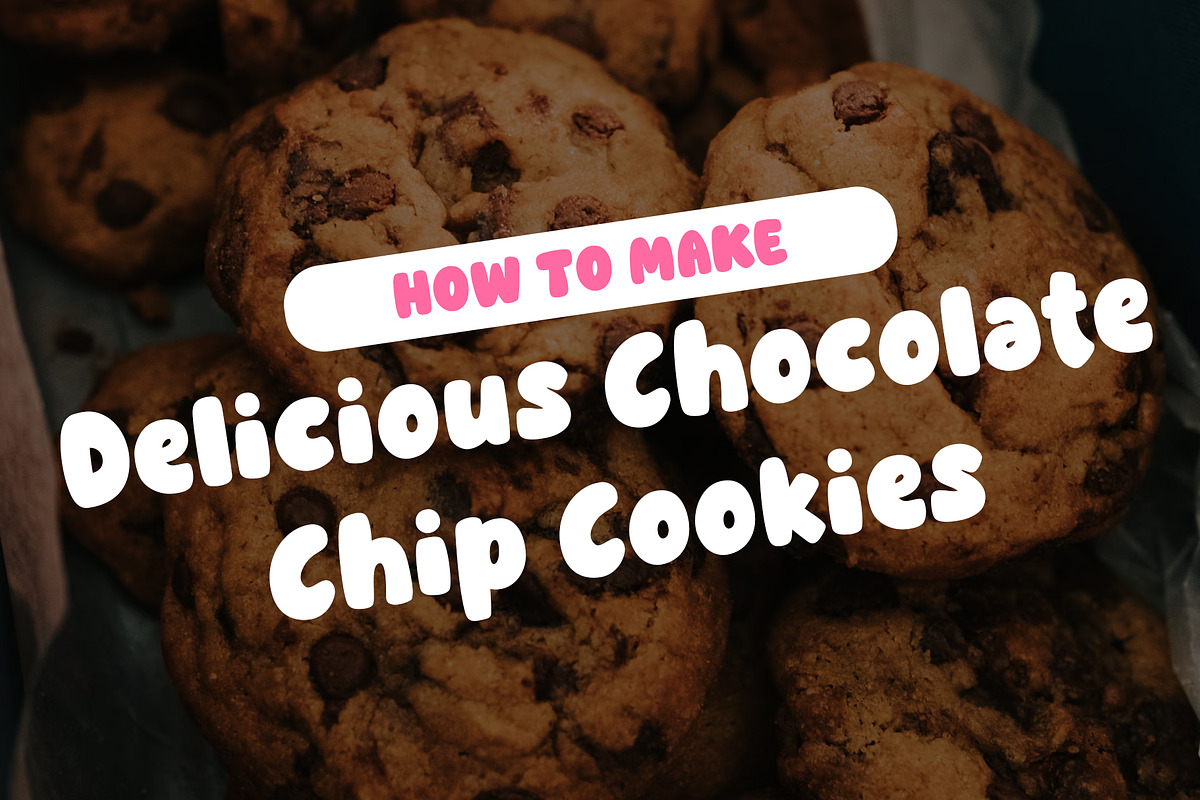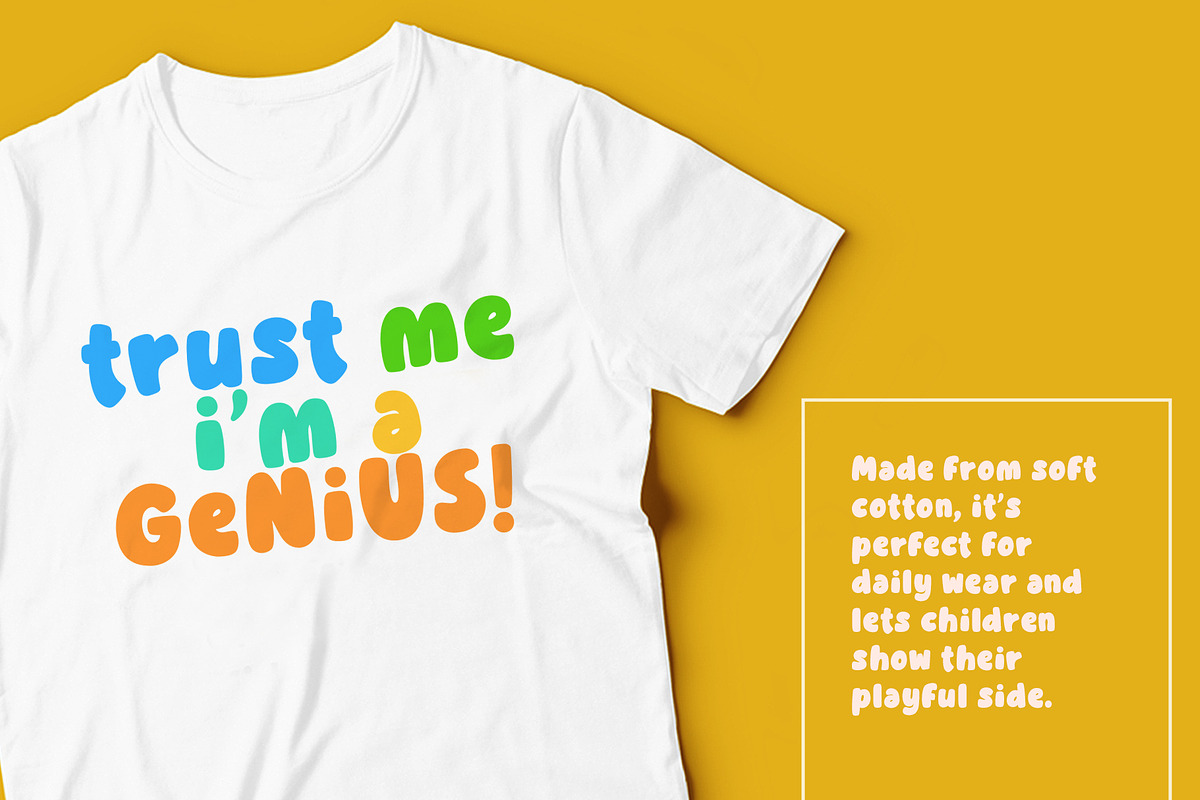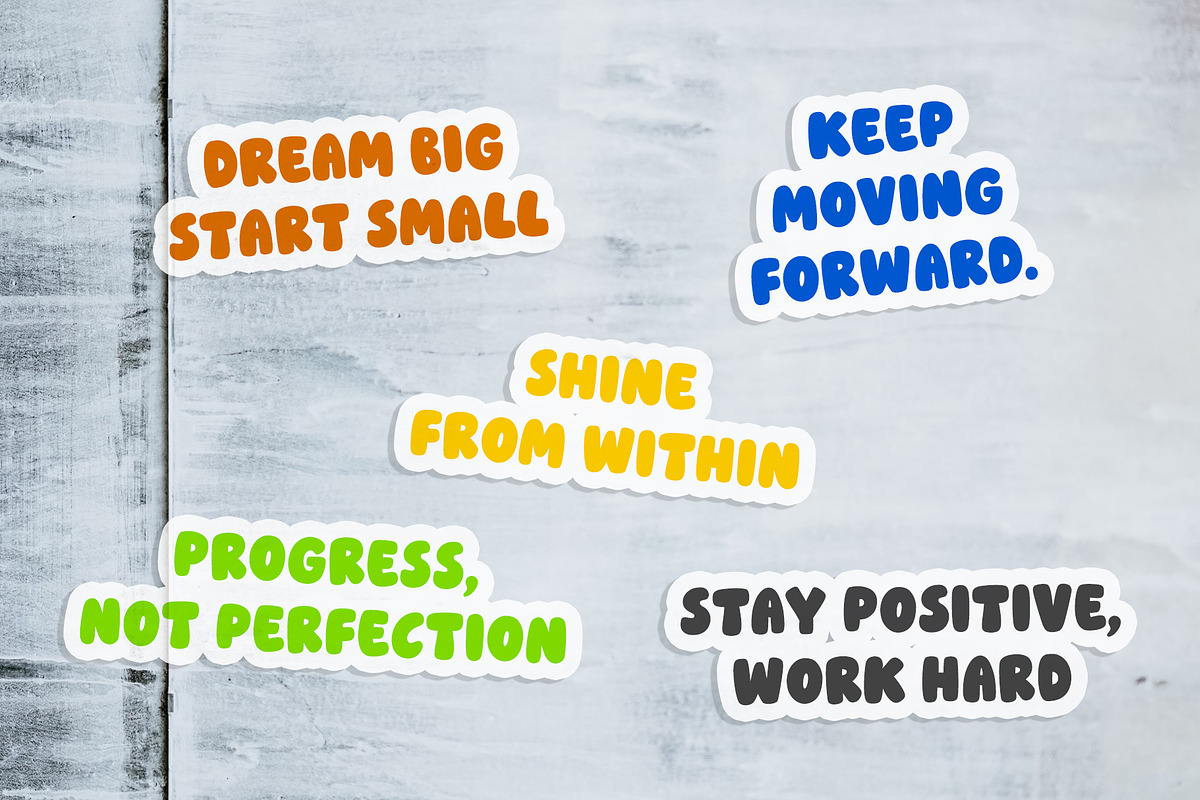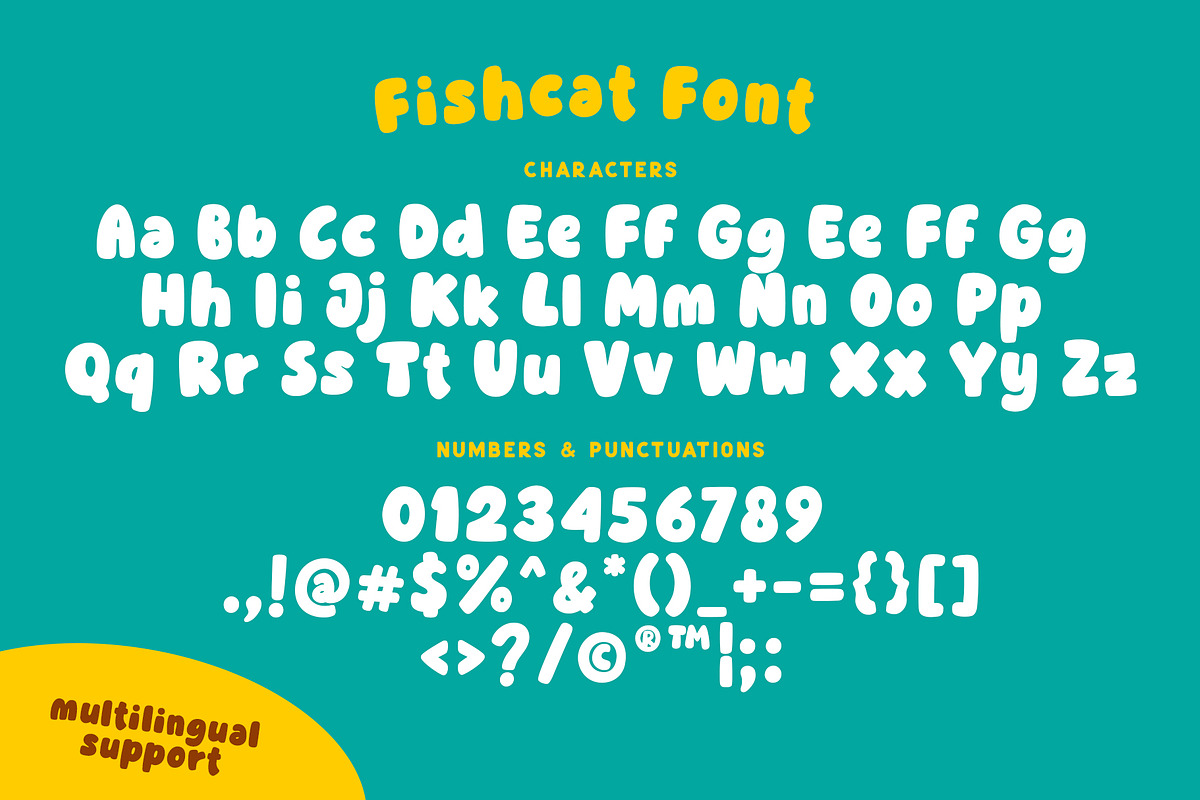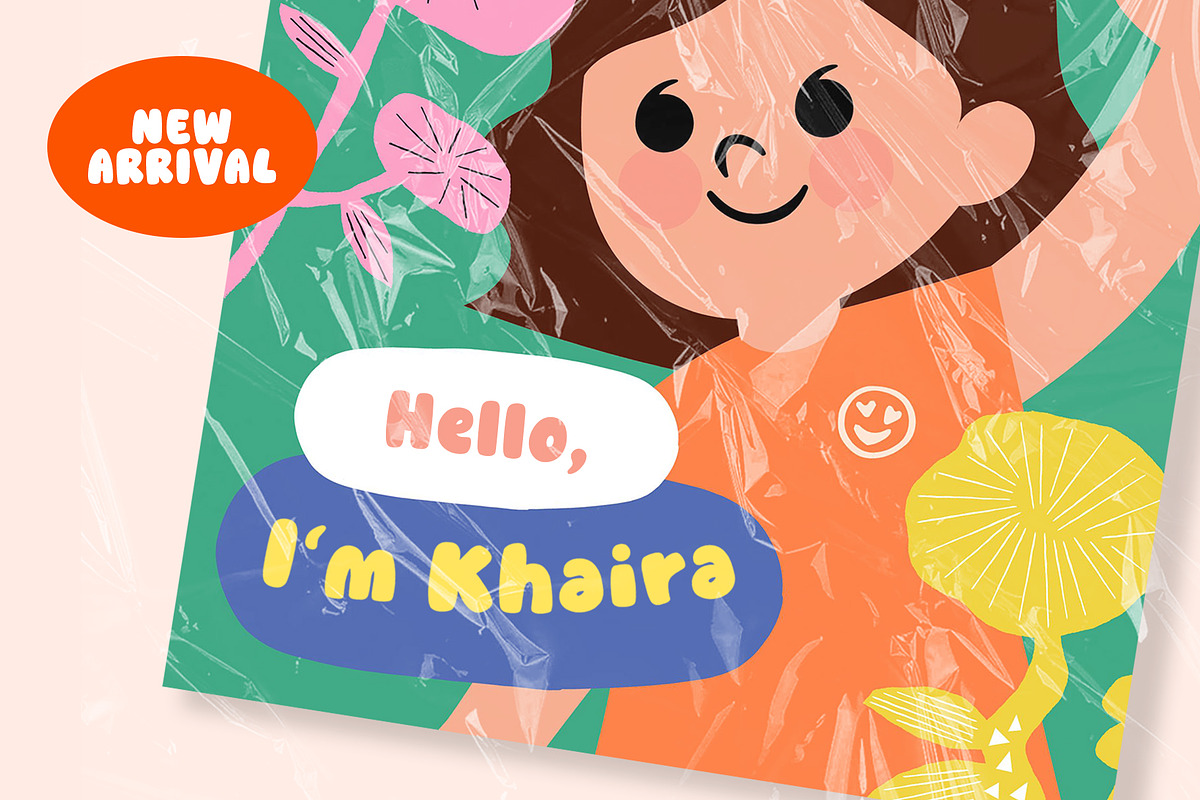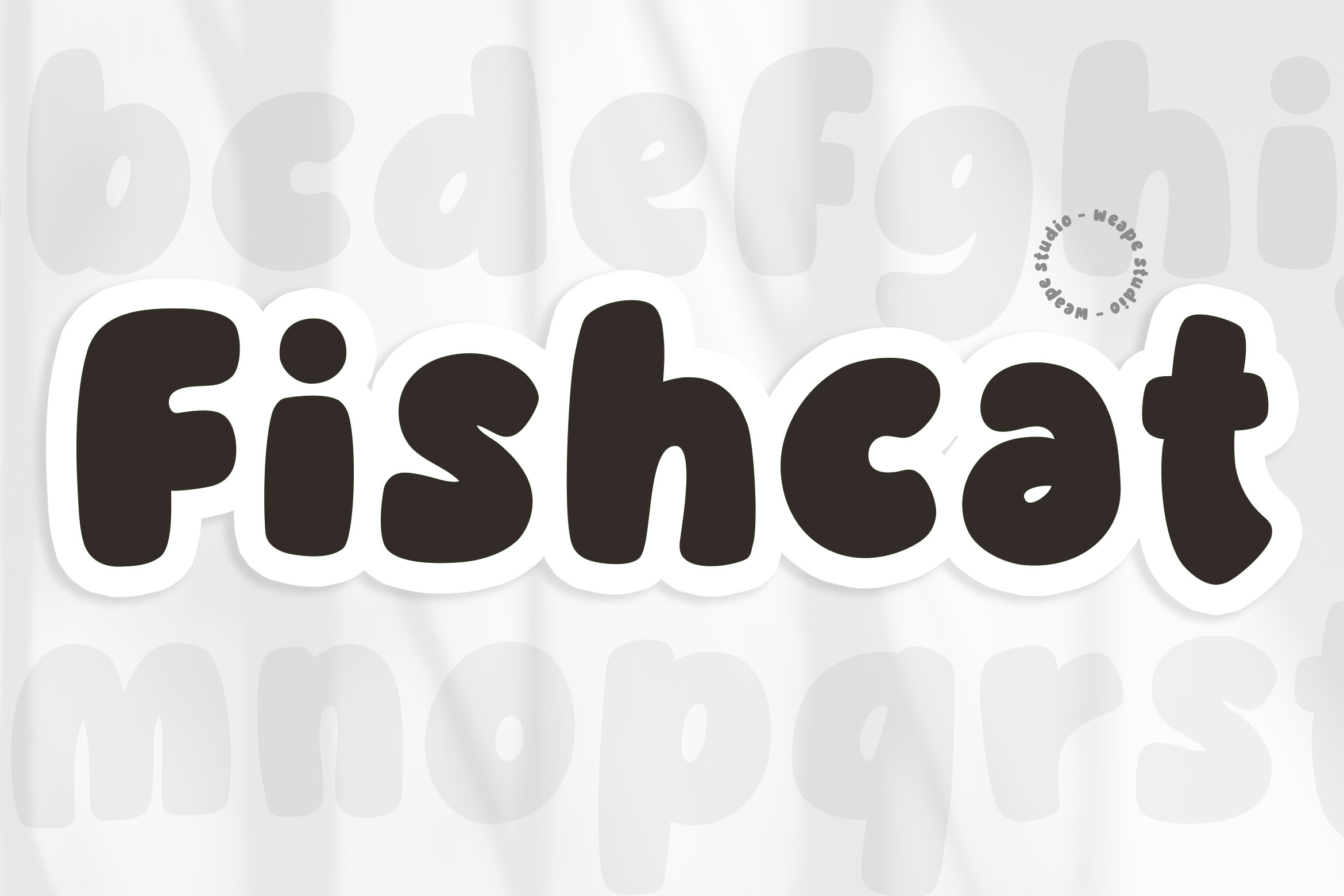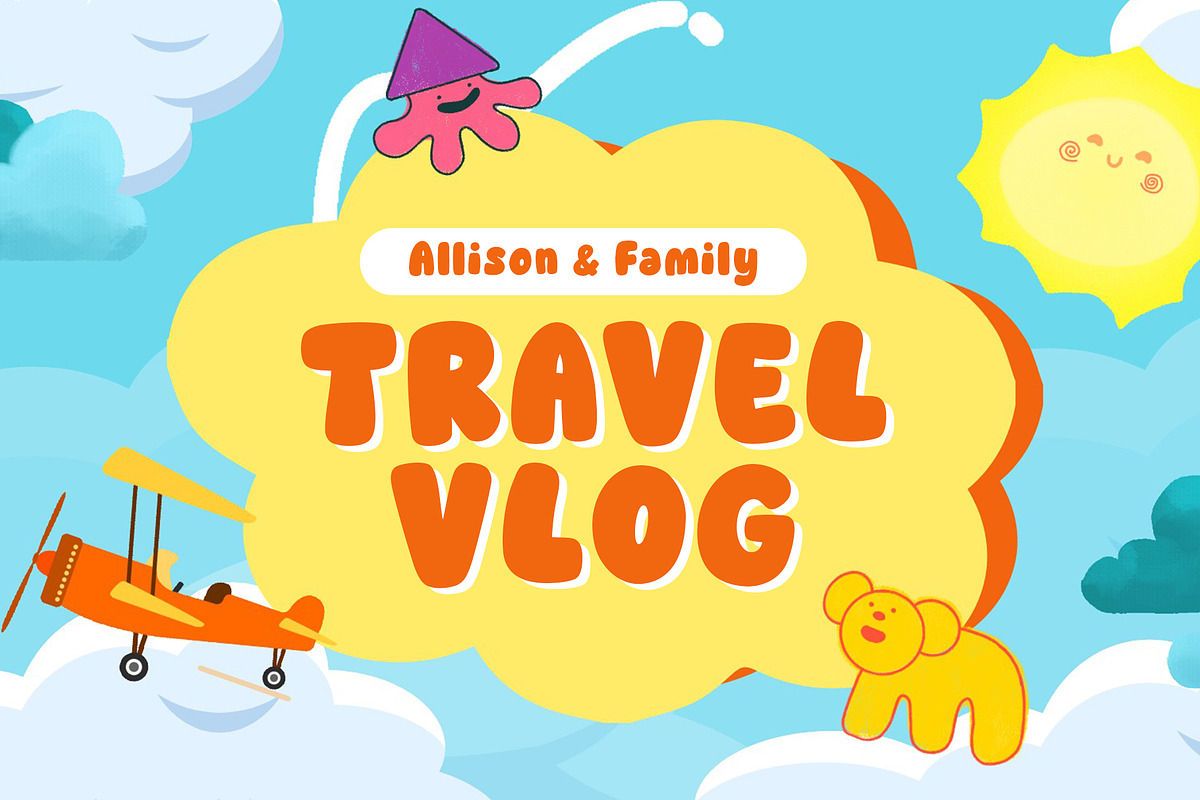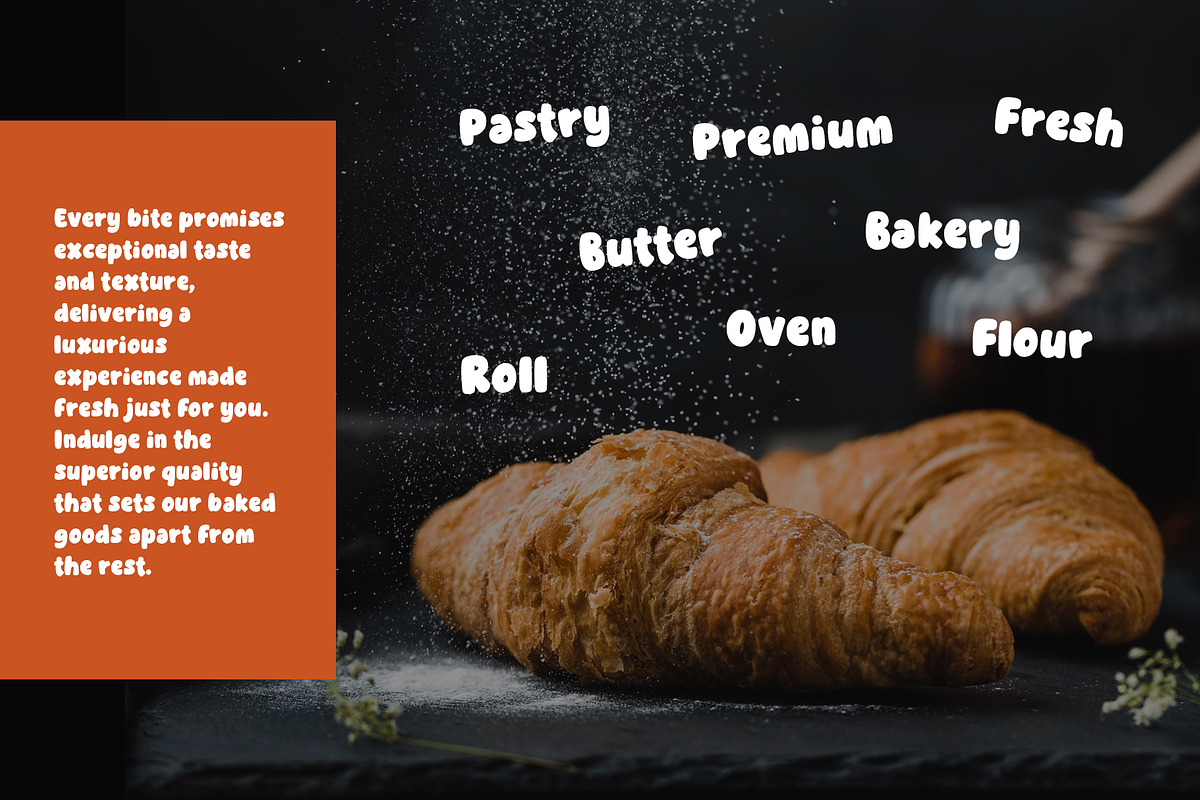
Fishcat - Bouncy Font
Fishcat is a playful, rounded display font designed to capture attention with bold, bubbly shapes and a friendly vibe. Each letter is carefully crafted with smooth curves and soft terminals, making the font easy to read and visually engaging. The distinctive chunky letterforms are perfect for child-friendly projects and ensure high legibility.
Whether used for headlines or playful text, Fishcat adds warmth and fun to your designs, instantly making them approachable and memorable.
Font features:
- Numbers, marks and symbols